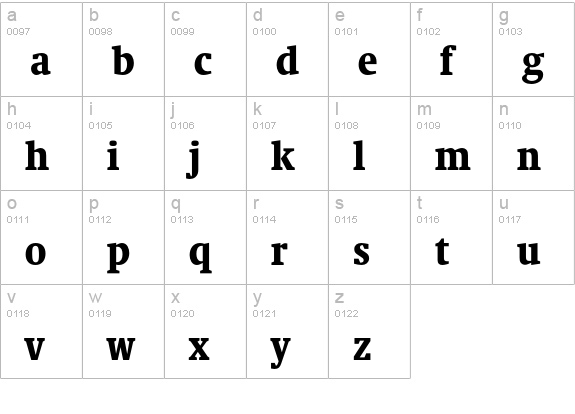
SwiftEF-BoldCondensed is a sleek and modern typeface that exudes confidence and sophistication. This bold condensed font is perfect for making a statement in headlines, titles, and branding materials. With its strong and distinct character, SwiftEF-BoldCondensed commands attention and adds a touch of elegance to any design project. The best part is that SwiftEF-BoldCondensed is available for free download at FontsMarket.com. Whether you're working on a professional project or a personal endeavor, this font is a versatile choice that will elevate your designs to the next level. Download SwiftEF-BoldCondensed today and add a touch of boldness to your typography arsenal.